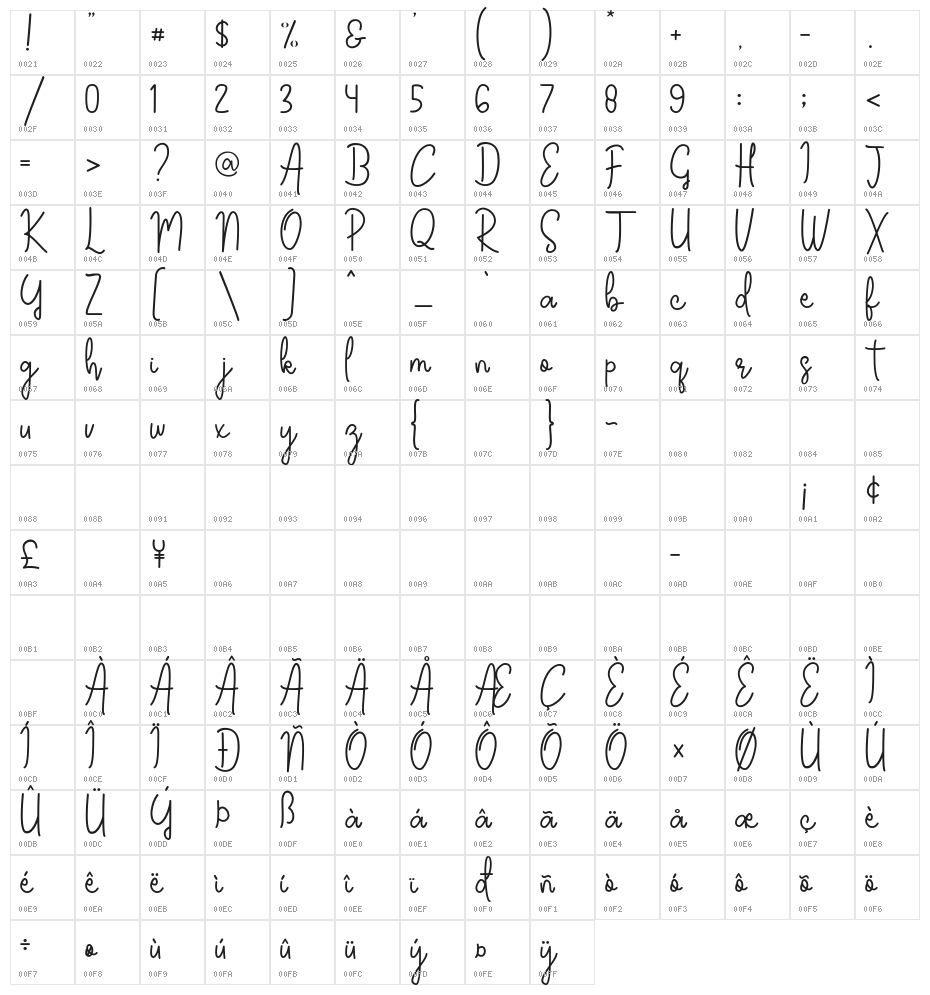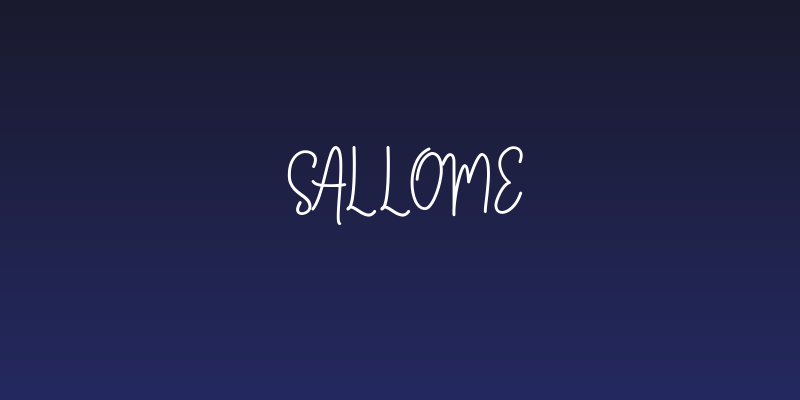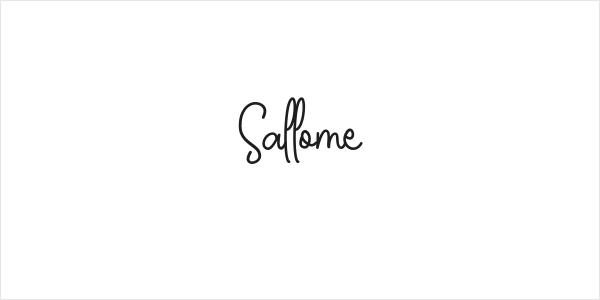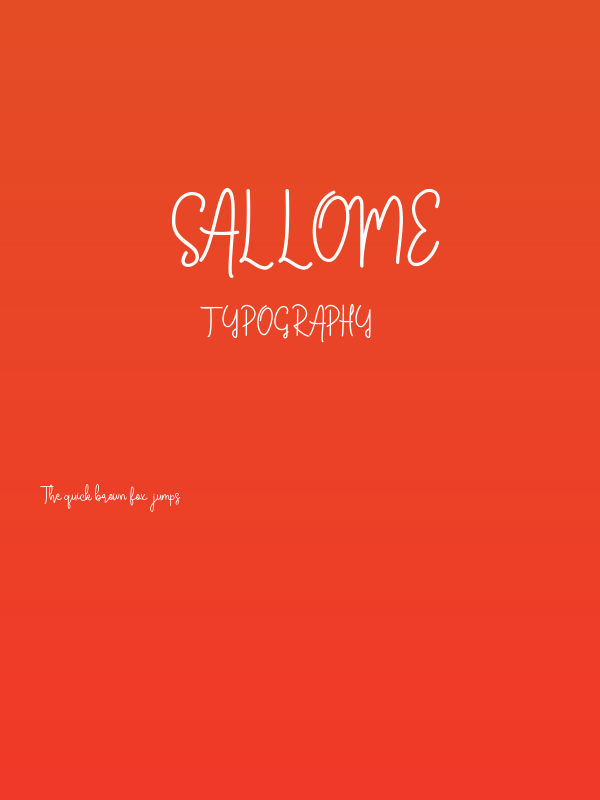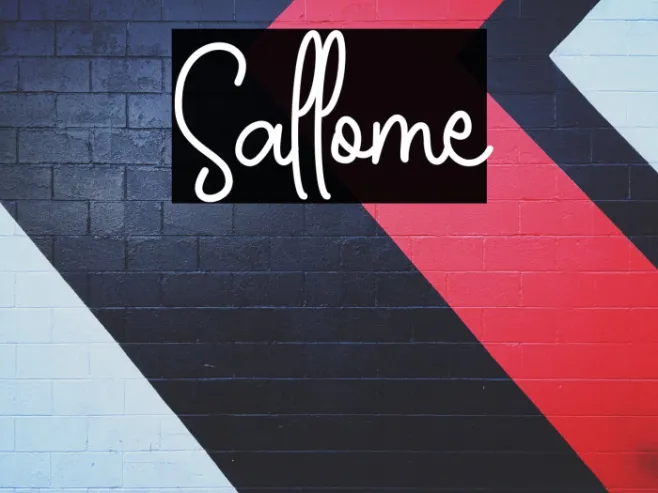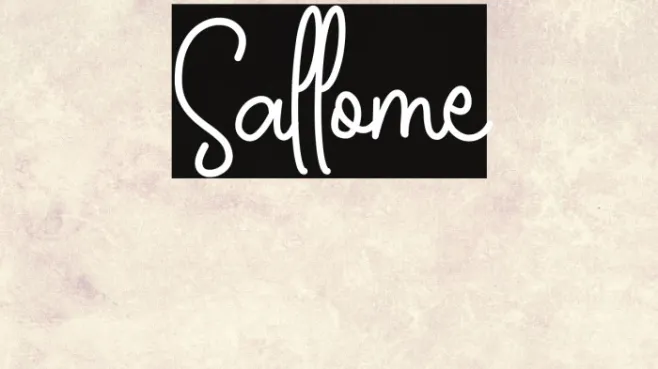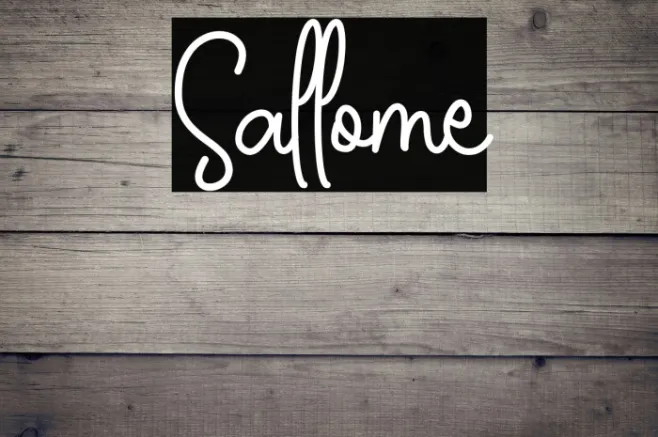
Sallome Font
Sallome Description
This font features a playful and whimsical handwritten style, characterized by its flowing and connected letterforms. The uppercase letters are tall and slender, with a slight slant that adds a sense of movement. The lowercase letters are more rounded and feature loops and curves that give the font a casual and friendly appearance. The numbers maintain the same playful style, ensuring consistency throughout. Special characters are uniquely styled, maintaining the overall aesthetic. This font is ideal for projects that require a personal touch or a creative flair.
| Overall Style | Casual and playful |
| Use Case | Logos, headlines, creative projects |
| Proposed Projects | Greeting cards, invitations, personal branding, creative posters, and social media graphics. |